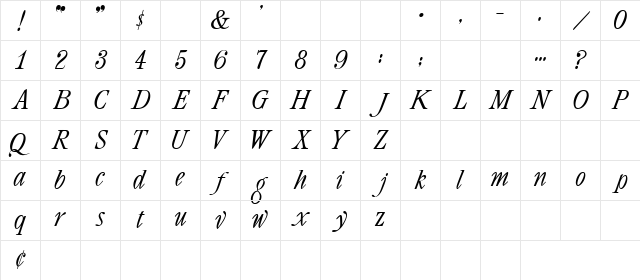
4 Master DNA Regular
Design Context for 4 Master DNA
4 Master DNA is a composed and adaptable typeface that performs quietly and consistently across a wide range of design contexts.
Pro Tip: Use 4 Master DNA in both headline and body roles to test its range before committing to a single application.